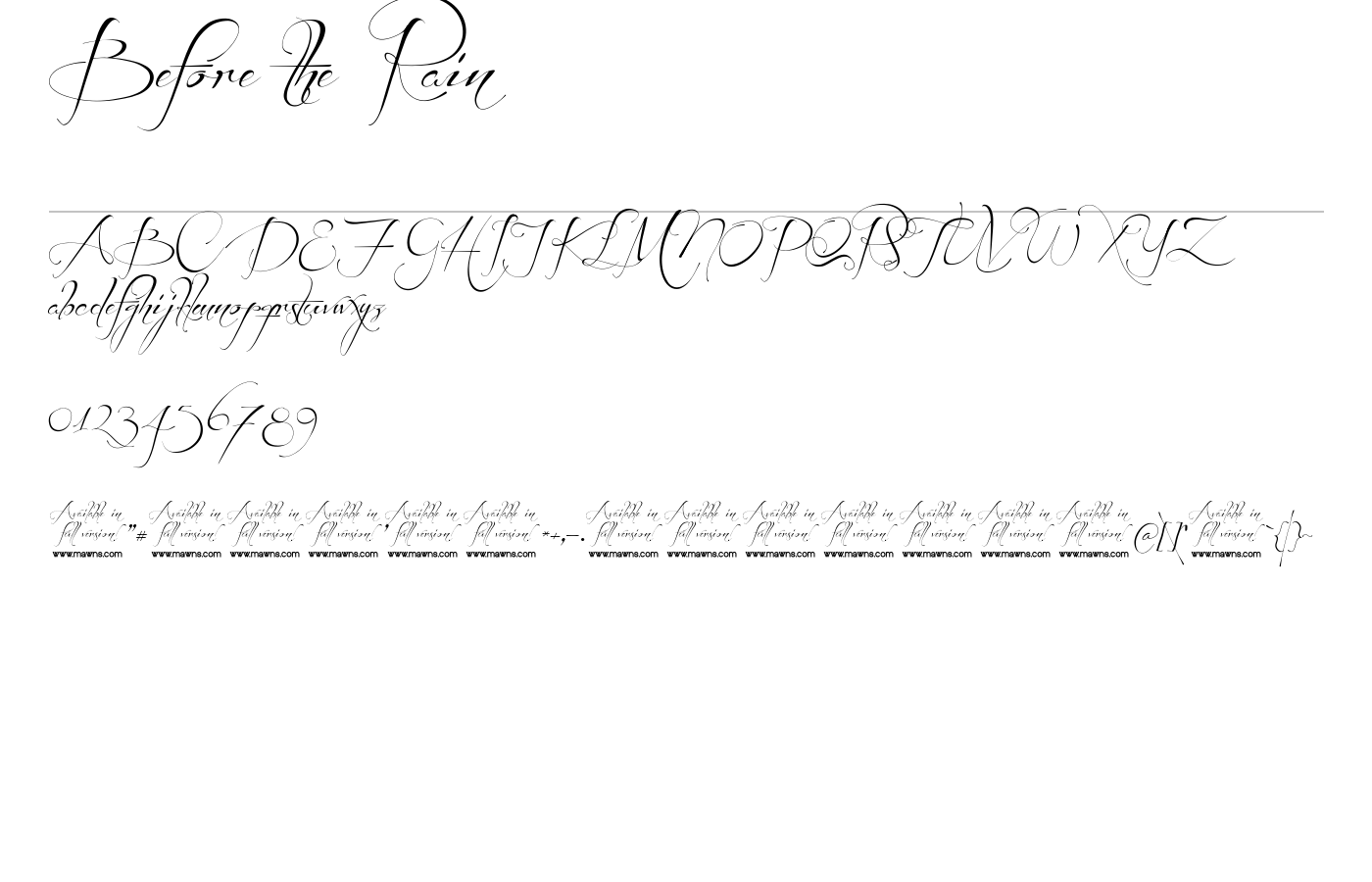
Before the Rain is an elegant, delicate script font with fine, flowing strokes and graceful swashes that evoke a sense of sophistication and artistry. Its tall, slender letterforms and high contrast between thick and thin lines make it ideal for luxury branding, wedding invitations, and upscale editorial designs where a refined, romantic mood is desired. This font works beautifully in large sizes for headlines or logos, adding a touch of timeless beauty and expressive flair.
Before the Rain Font
About Before the Rain Font
| Designer | Måns Grebäck |